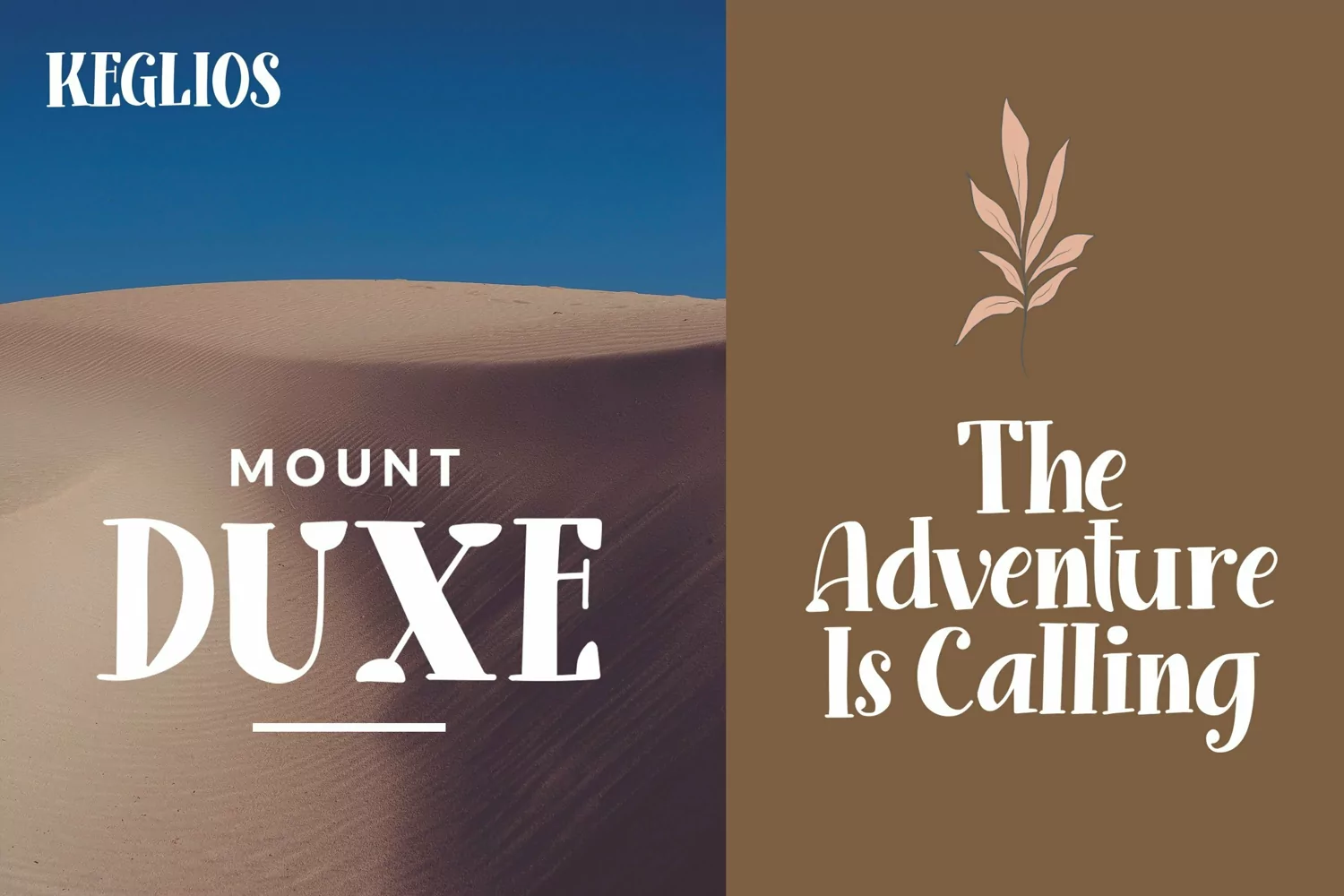
Keglios - Handdrawn Serif Fonts that contain lowercase, uppercase, symbol, and also support multi language. There’s a lot ligatures in this font. This Font also comes with ligatures, alternates and many more. this font suitable for fashion, branding, catalog and other design what you want.